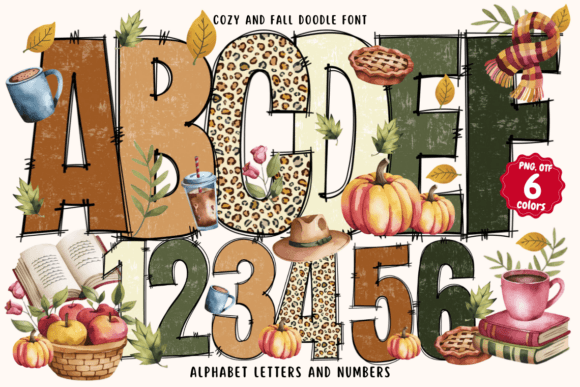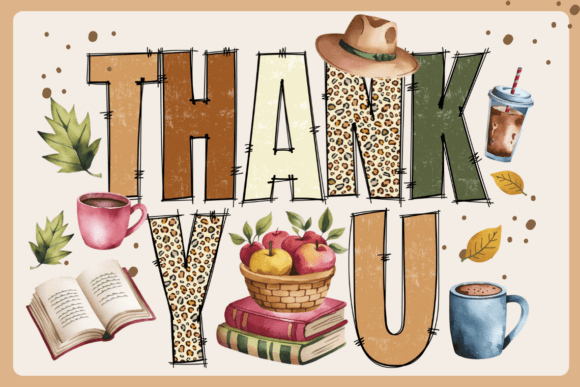
Cozy and Fall Doodle Font
Cozy and Fall Doodle Font is a charming and warm typeface that captures the essence of the autumn season. With playful doodles and whimsical details, this font is perfect for creating cozy fall-themed designs like invitations, posters, and seasonal décor. Whether you’re working on school projects, holiday cards, or creative art, the soft, rustic feel of this font adds a delightful autumn touch to any graphic design. Embrace the spirit of fall with this unique font that celebrates the beauty of the season, from pumpkins and leaves to warm sweaters and crisp air.